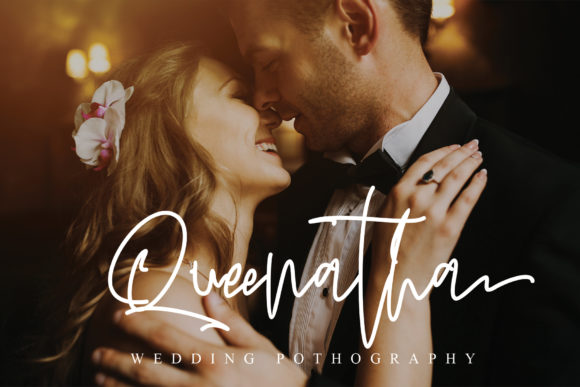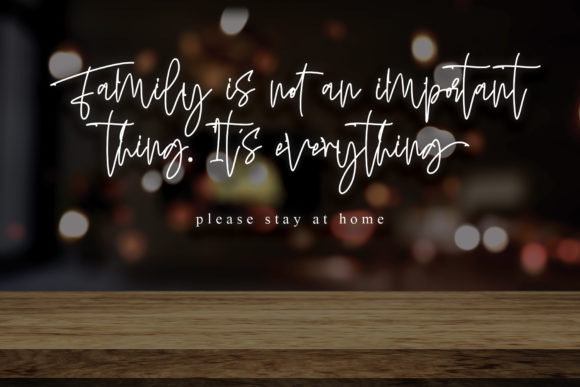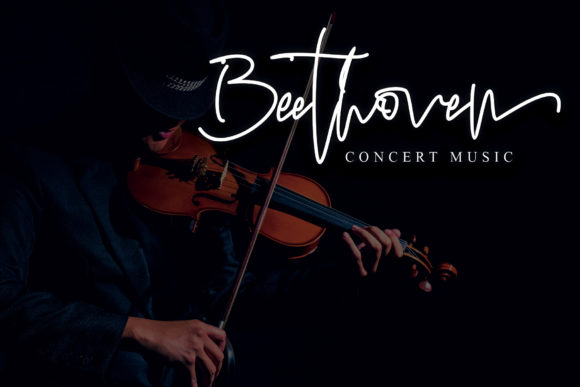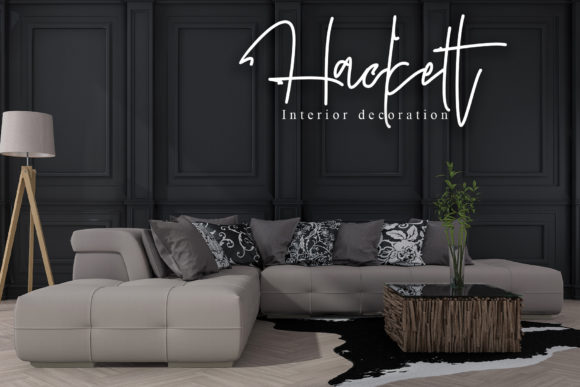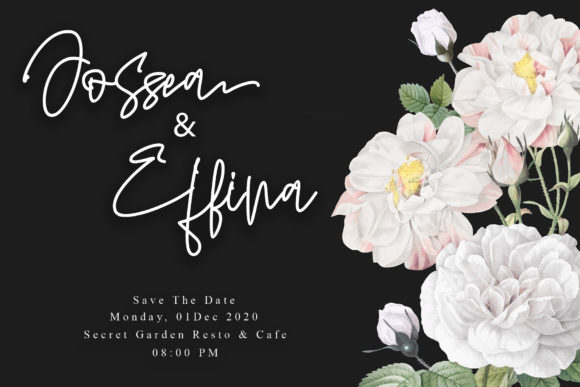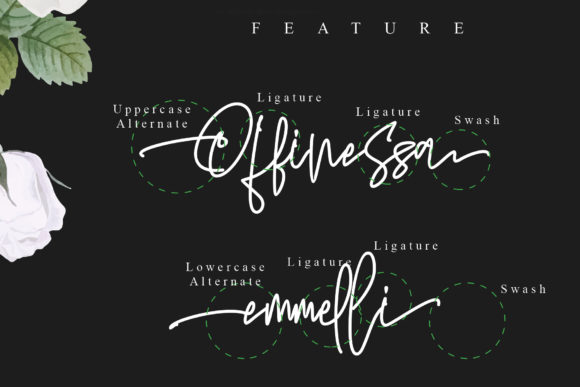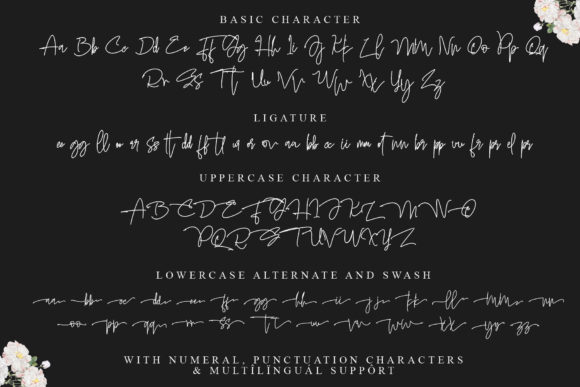
Ottbelix Font
About Ottbelix Font
Ottbelix is signature monoline font. Clean and elegant, this font will apply for a wide variety of projects, be it titles, headings, logos, branding, posters, invitations, cover books, and much more.